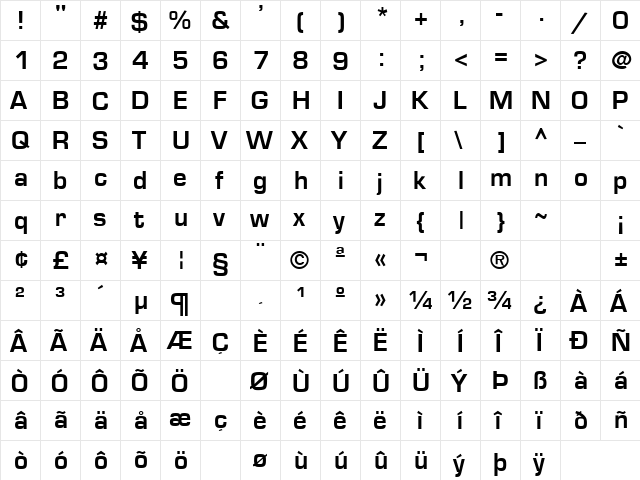
Green Mountain 7 Bold
Design Context for Green Mountain 7 Typeface
Green Mountain 7 is a composed and adaptable typeface that performs quietly and consistently across a wide range of design contexts. Its bold stroke weight gives it real presence on the page.
Pro Tip: Pair Green Mountain 7 with a font of contrasting weight or personality to build a more expressive typographic hierarchy.